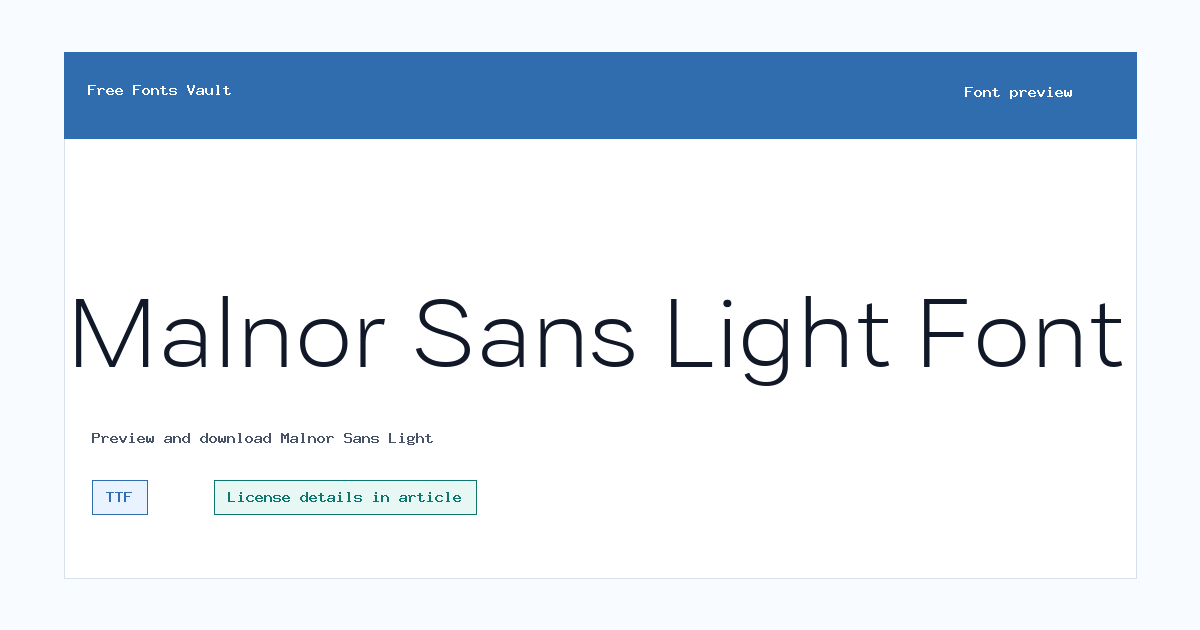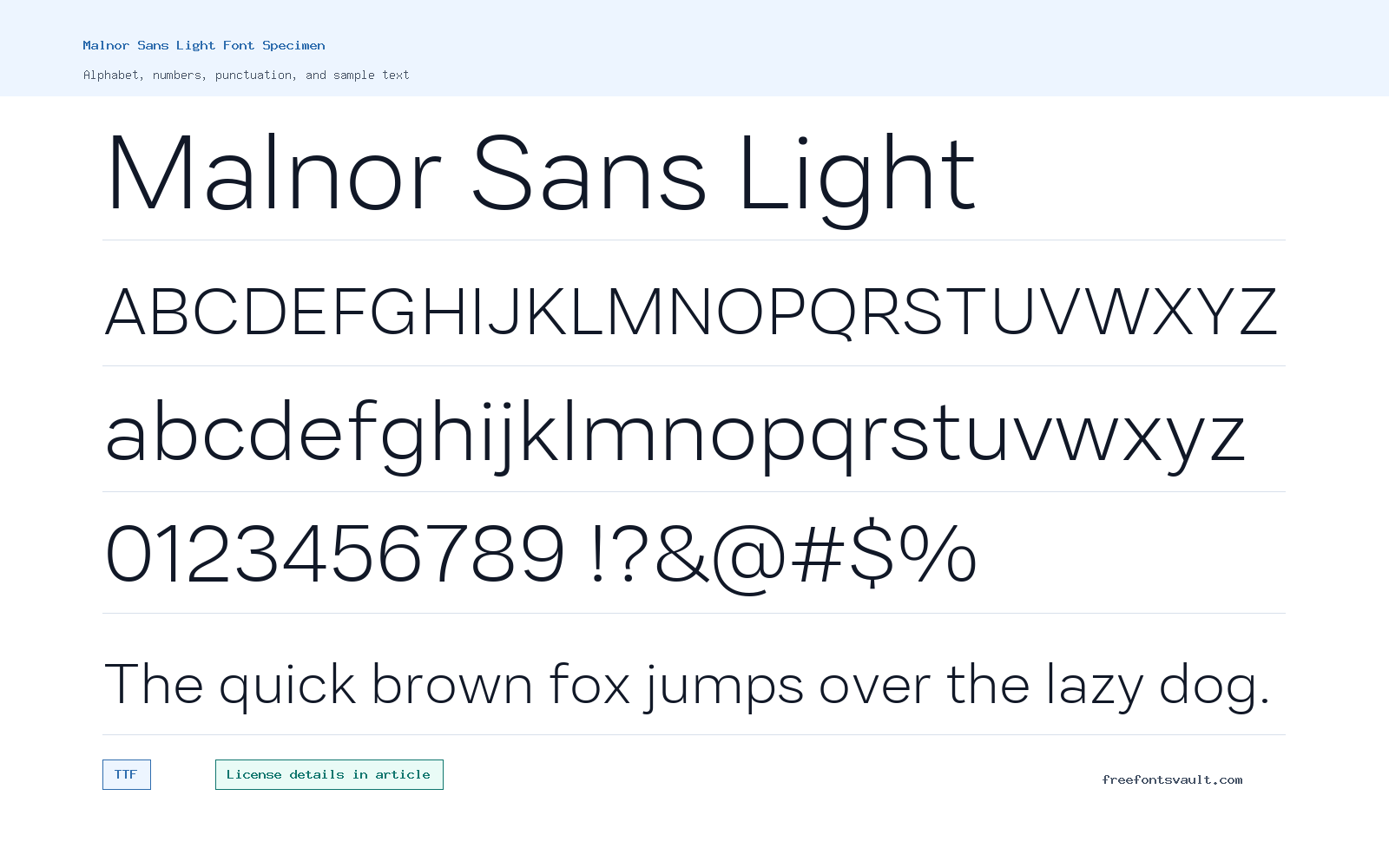
Malnor Sans Light
- Designer Herlan Nawwi
- Foundry Sikifonts
Malnor Sans Light is a clean light-weight sans serif from the Malnor Sans family. It has a modern, neo-grotesque feel with slim strokes, balanced spacing, and a simple shape that works best when the text has room to breathe.
About Malnor Sans Light
Malnor Sans Light is the 300-weight upright style of Malnor Sans, a larger sans serif family designed by Herlan Nawwi and published by Sikifonts. The family is described by distributors as a modern or neo-grotesque sans serif with balanced proportions, a clean build, and a broad set of styles. In the Light weight, those traits come through as a softer, quieter version of the design. It is not a heavy headline face, and it should not be treated like one. Its thin strokes are better for refined titles, short interface labels, section headings, captions, and display text where a lighter voice is useful.
Use the preview tool to test real words, not only alphabet samples. Light sans fonts can look elegant at large sizes but may lose strength in small text, low-contrast colors, or busy backgrounds. Try it with uppercase headings, sentence-case labels, numbers, punctuation, and accented characters if your project needs multilingual text. Malnor Sans is reported by font distributors as having broad Latin-based language support and many glyphs across the family, but you should still test the exact characters you need in the downloaded file. For body copy, consider pairing this Light style with a heavier Malnor Sans weight or another readable sans serif so paragraphs stay comfortable on screen.
- Modern neo-grotesque family style with balanced proportions and clean letterforms
- Part of an 18-style family with upright and oblique weights
- Distributor information describes alternate letters and OpenType features in the wider Malnor Sans family
- Reported broad Latin-based language support across the family
- Minimal headings and subheadings
- Editorial titles with generous spacing
- Portfolio and presentation mockups
- Clean UI labels and navigation text
- Posters or social graphics where the font can be used large
Malnor Sans is credited to designer Herlan Nawwi and foundry Sikifonts.
Keep Malnor Sans Light at medium to large sizes, use enough contrast, and avoid long paragraphs in very small text. Test the exact words, numbers, punctuation, and accented characters you need before final design work.
What kind of font is Malnor Sans Light?
It is a light-weight sans serif. Distributor descriptions place the wider Malnor Sans family in a modern or neo-grotesque sans serif style.
Who designed Malnor Sans Light?
Malnor Sans is credited to Herlan Nawwi, with Sikifonts listed as the foundry.
Is Malnor Sans Light good for body text?
It can work for short text, captions, and spacious layouts, but the light weight may become weak in small body copy. Test it at your target size and consider a heavier weight for longer reading.
Does Malnor Sans include more styles?
Yes. Font distributors list Malnor Sans as an 18-style family with upright and oblique styles from thin weights through black weights.